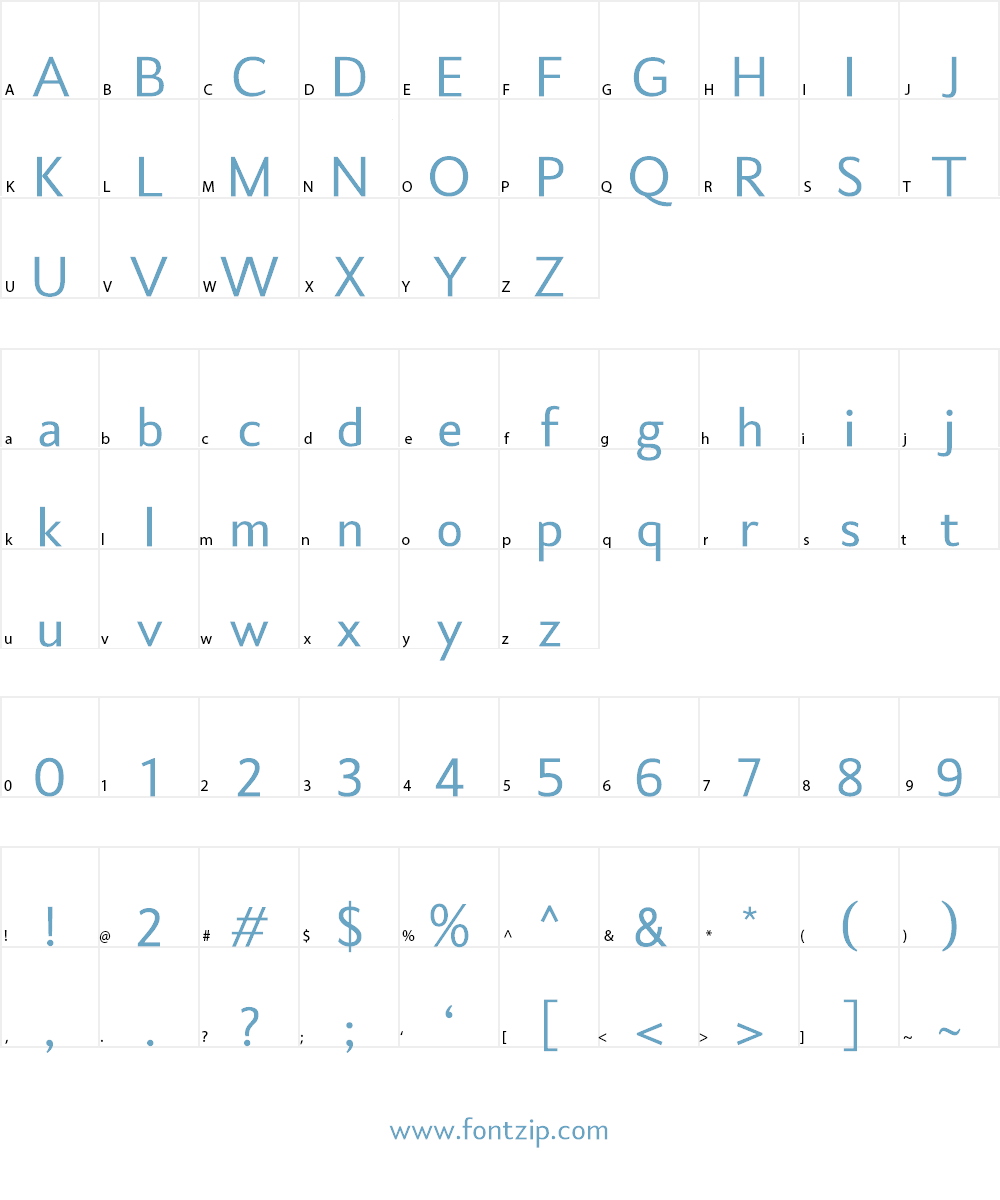
Blending ancient heritage with modern sensibilities, Tantular is a humanist sans-serif typeface tailored to create a unified and harmonious style between latin and the many scripts of Indonesia. Each script is assigned to certain font, this font contains latin and balinese.